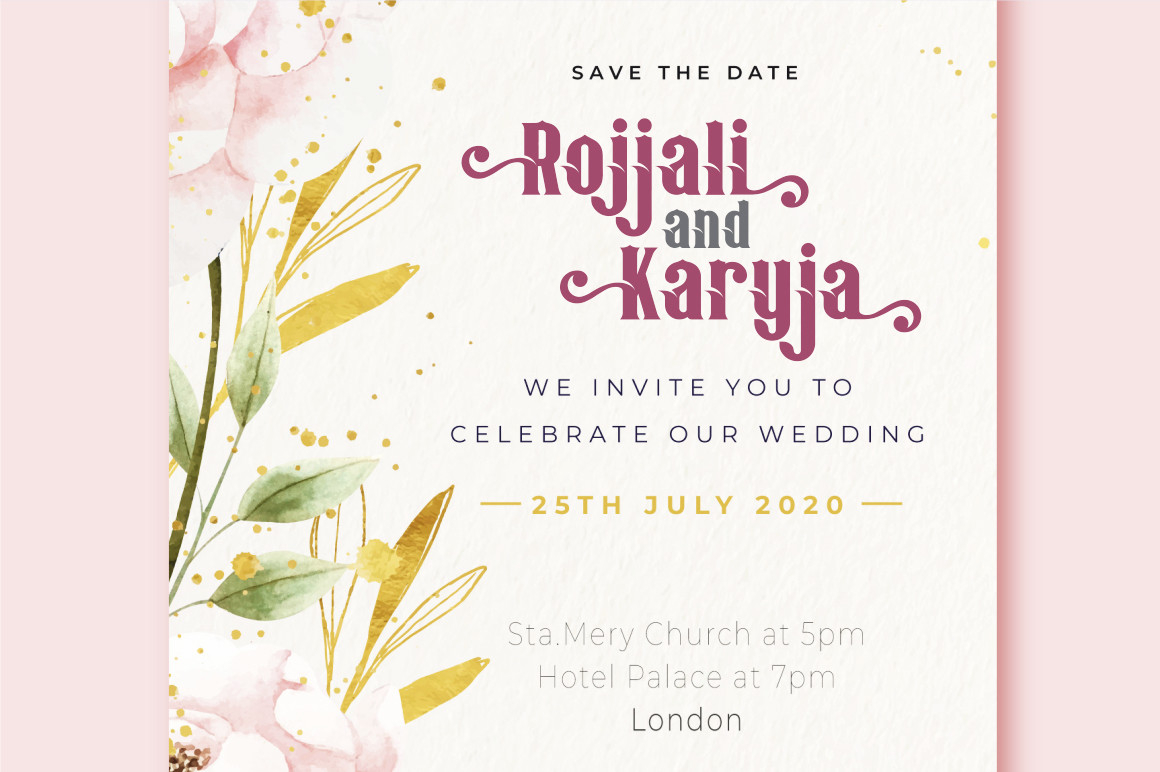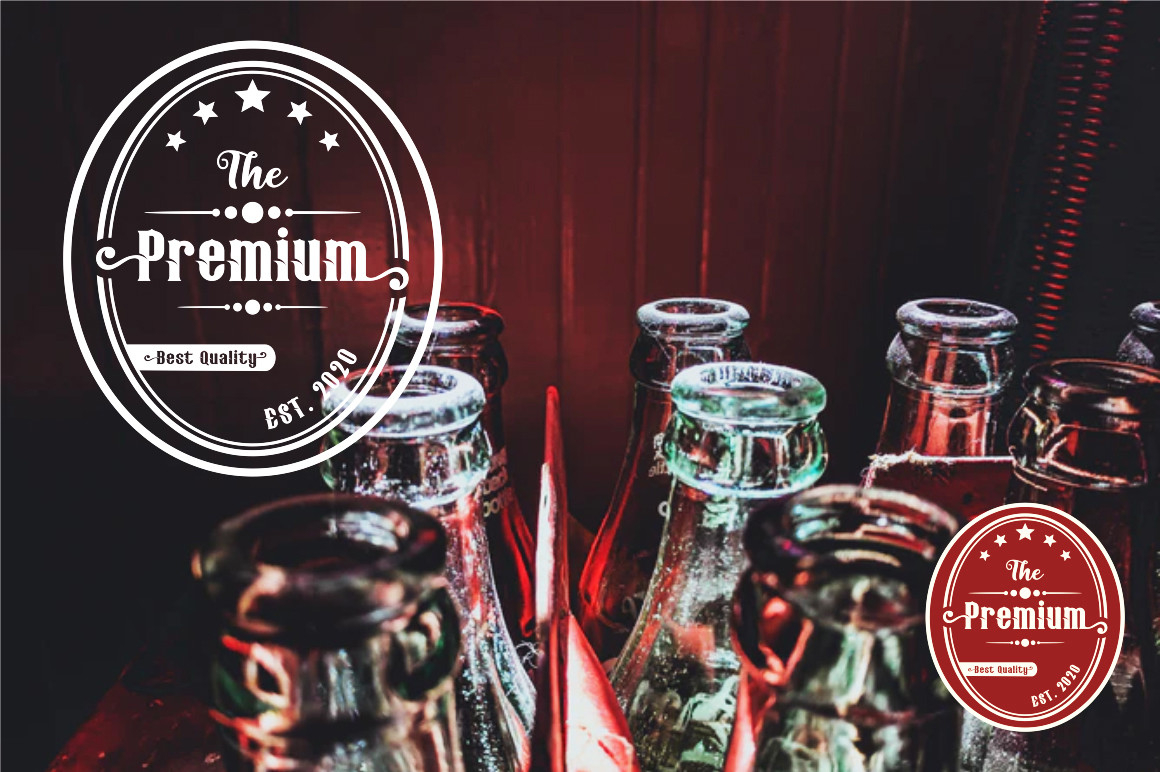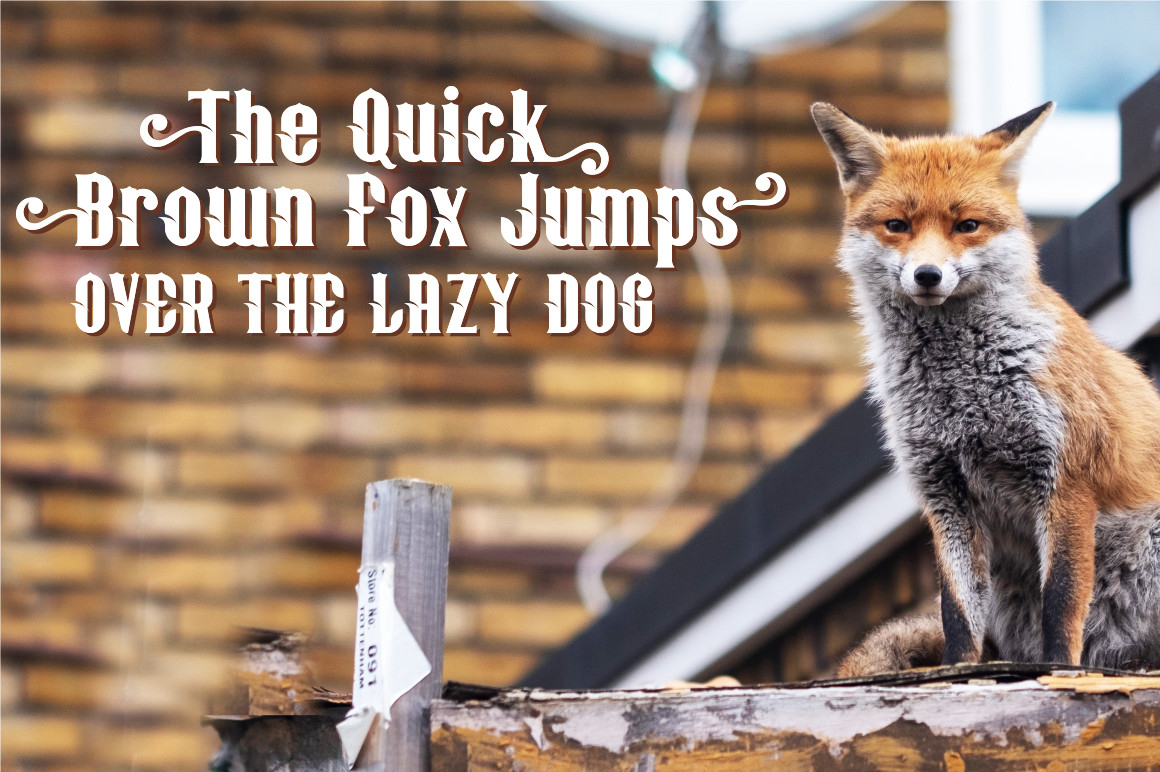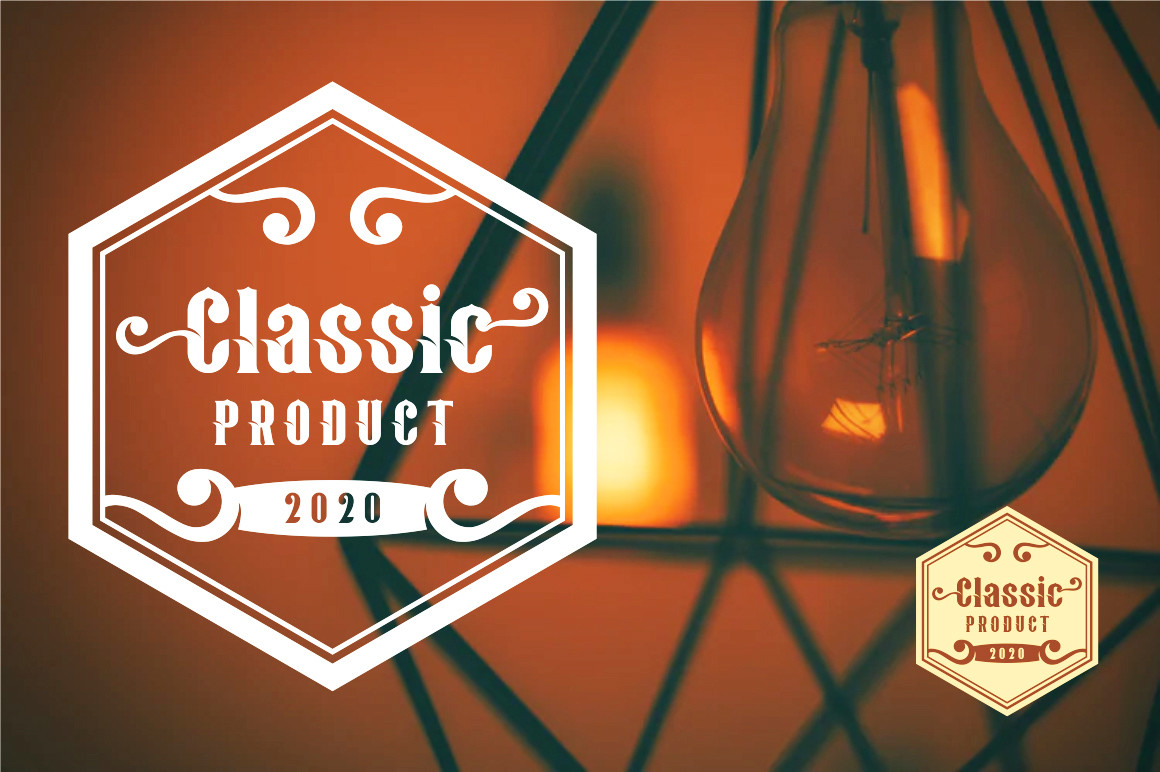
About Wacaban Font
Wacaban is an elegant and assertive blackletter font. Fall for its ravishing style and use it to create gorgeous wedding invitations, beautiful stationary art, eye-catching social media posts, and much more!